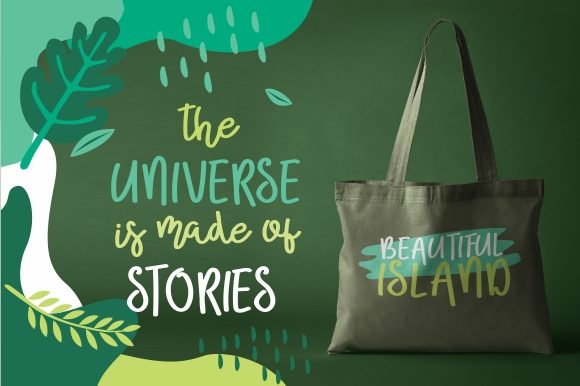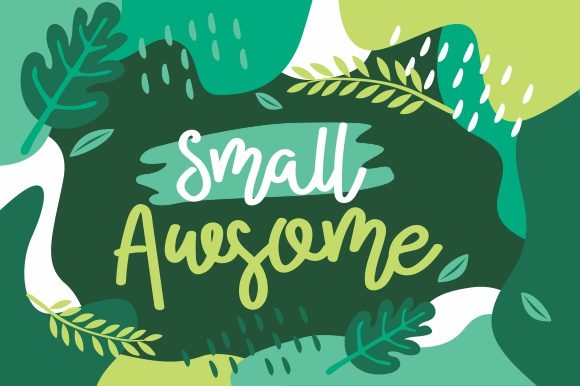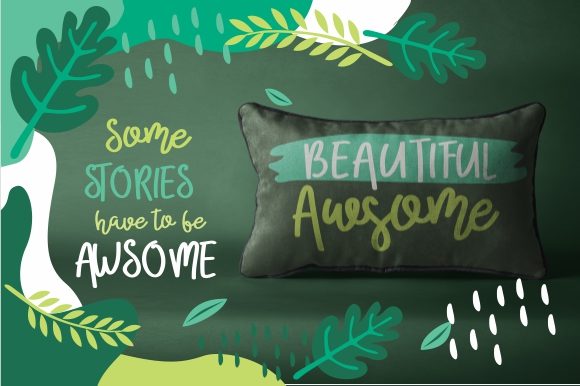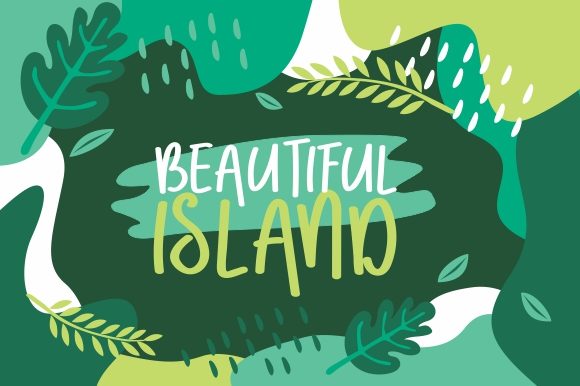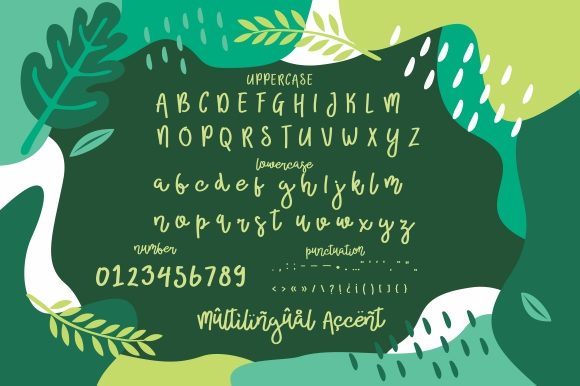
Broolia Font
About Broolia Font
Broolia a beautifully handwritten font. This font will looks amazing in your next projects.
This is the perfect font for a variety of applications such as logos & branding, invitations, stationery art, social media posts and much more.